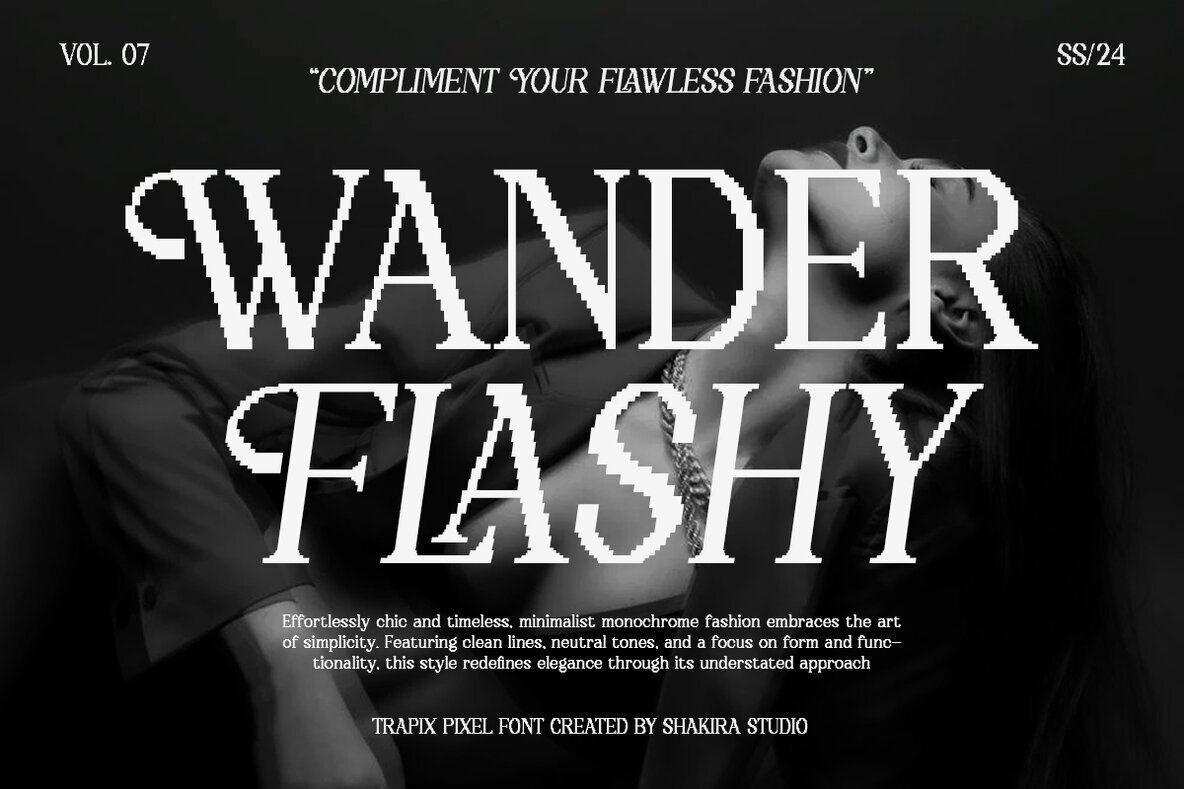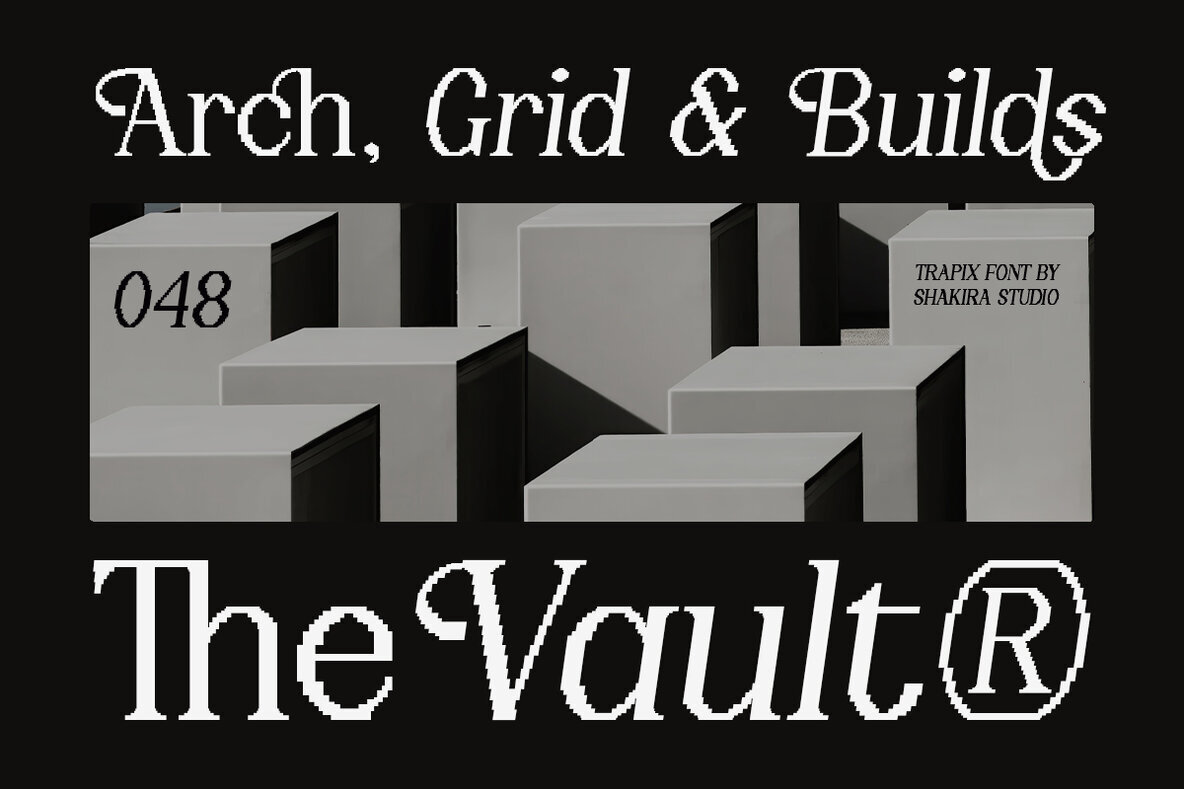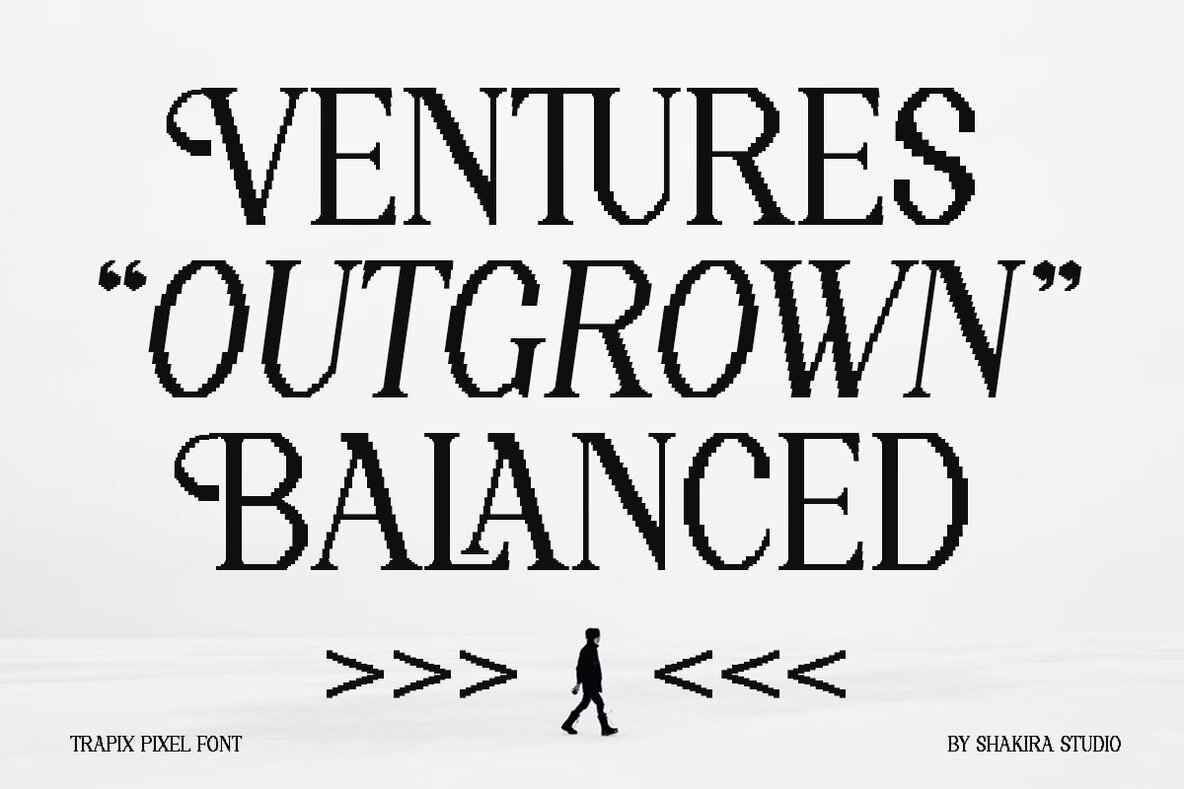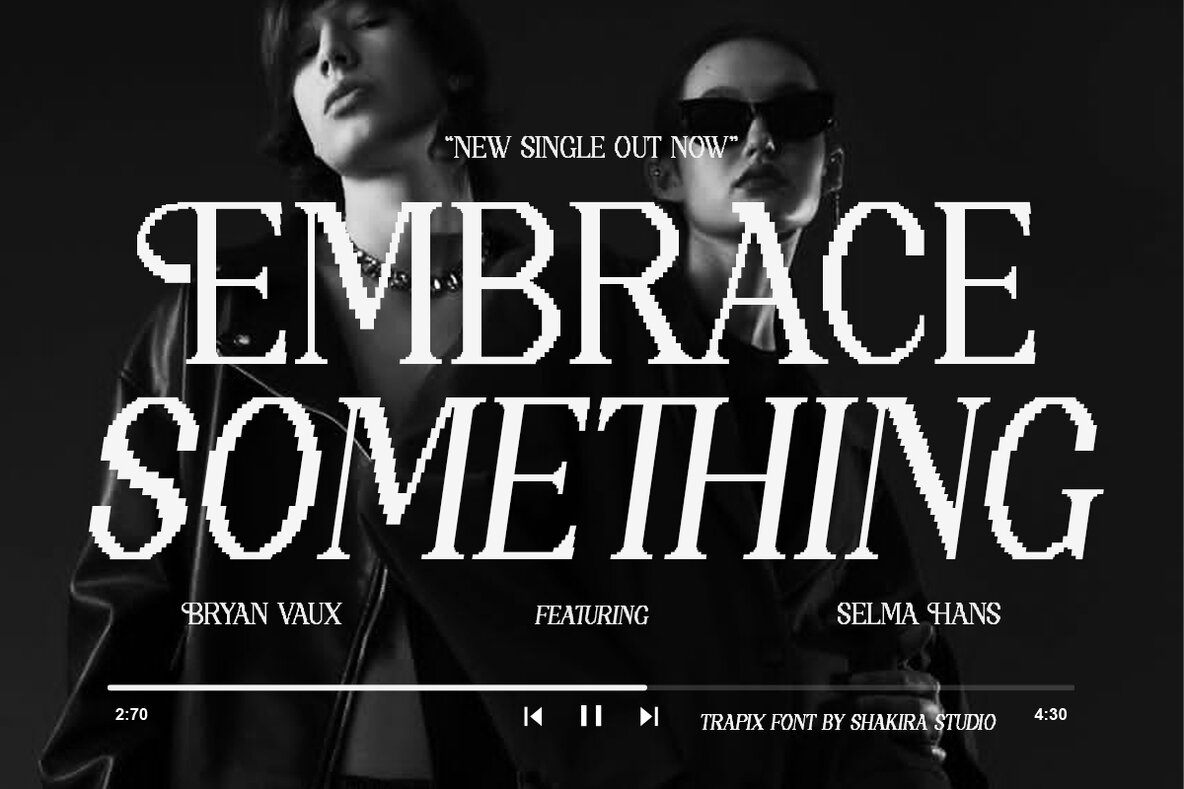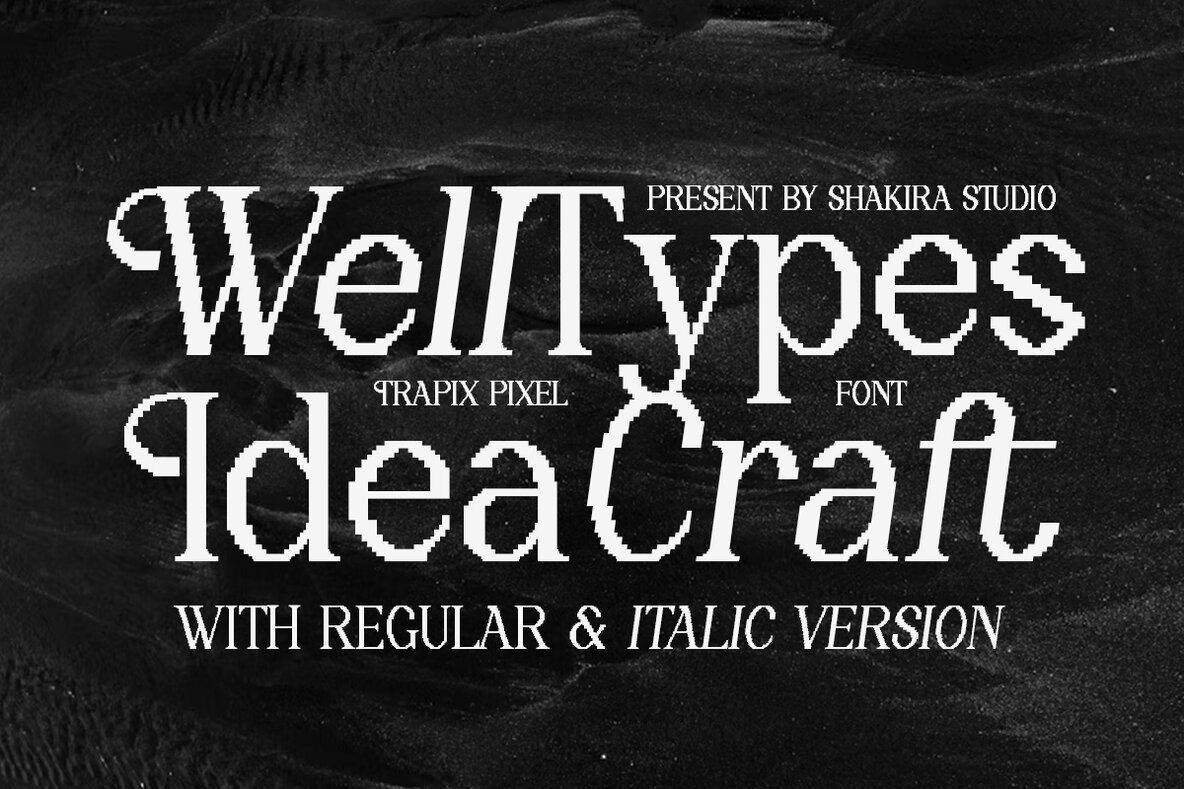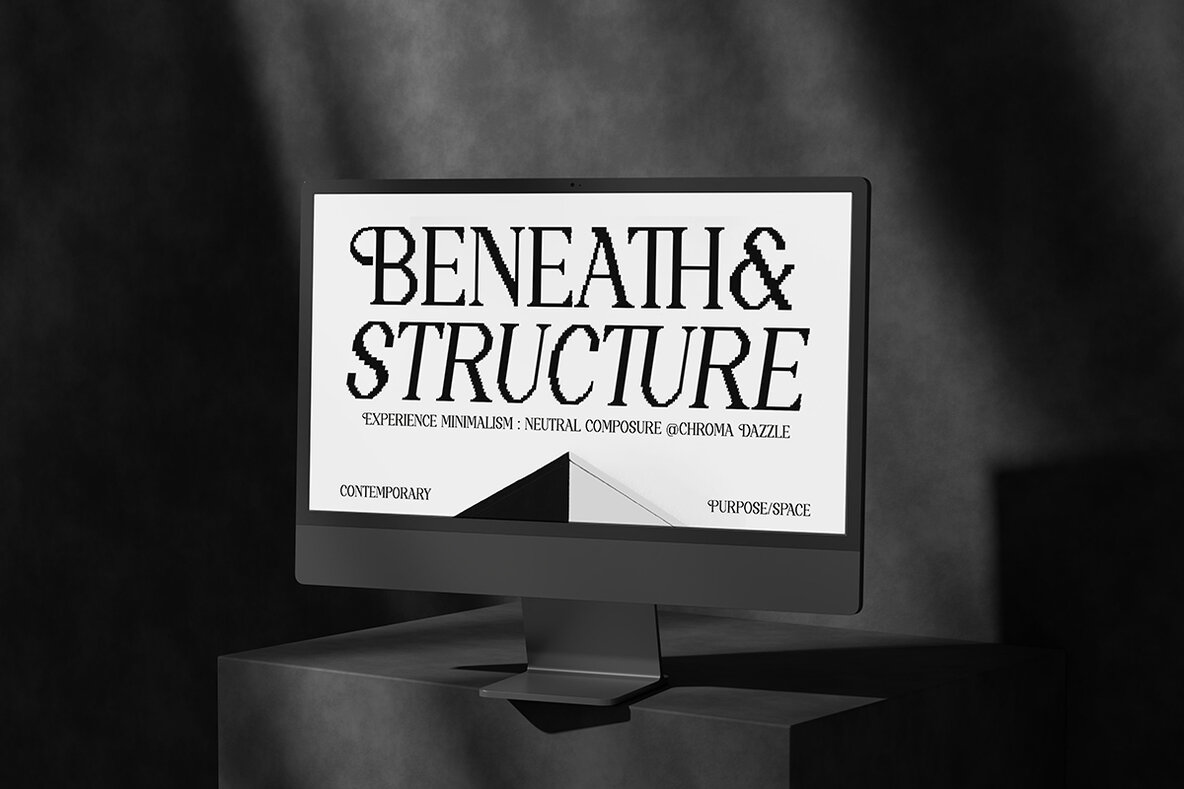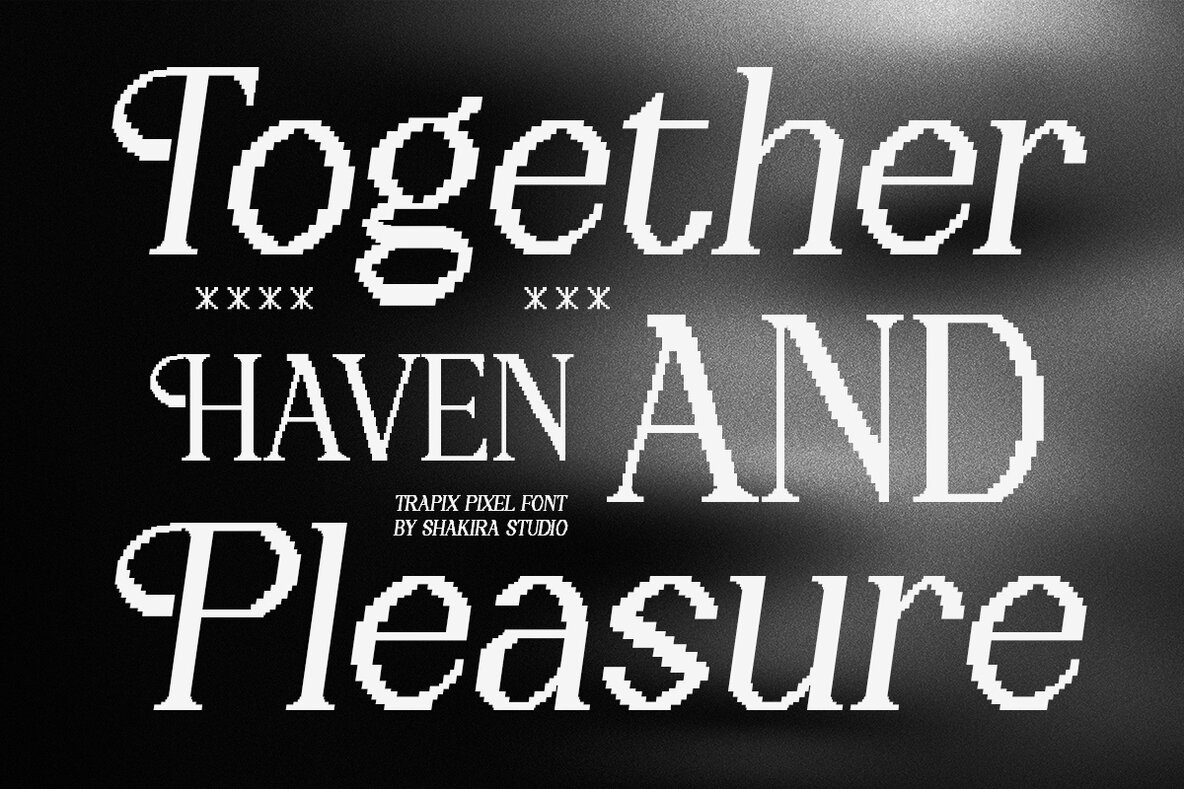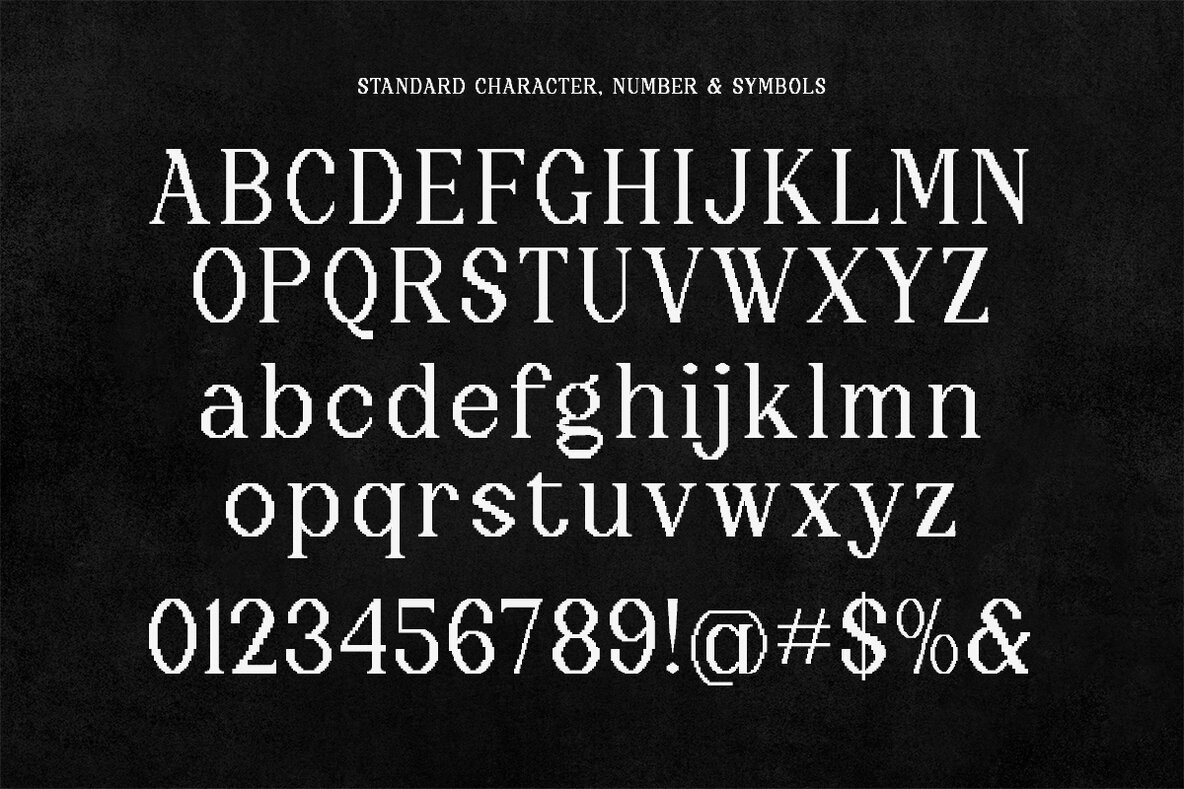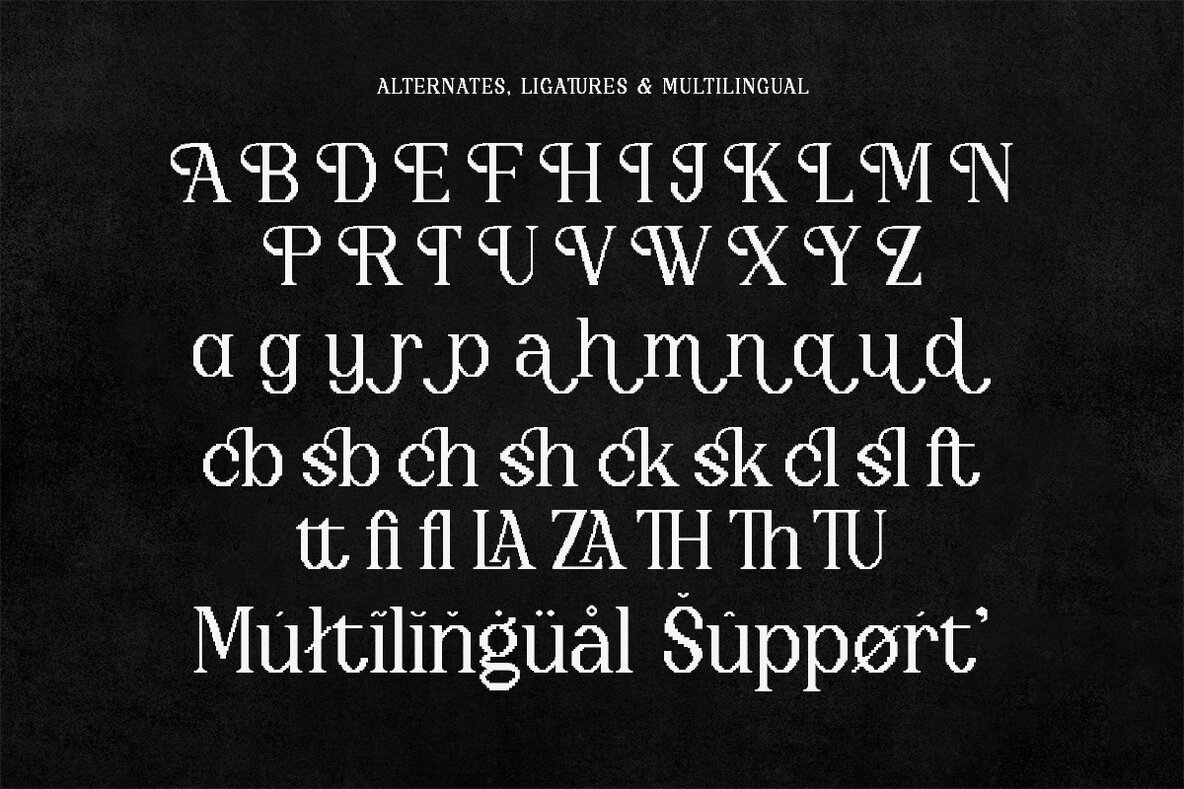
Trapix Font
Trapix - A Unique Pixel-Style Serif Typeface Trapix is a serif typeface with a unique pixel character, designed to bring a modern touch to your designs. Featuring stylish alternates and ligatures, this font allows users to create creative and personalized designs effortlessly. Perfect for a wide range of design needs, such as posters, magazines, branding, and premium prints. The combination of unique pixel style and classic serif elements makes Trapix the ideal choice for adding a stunning retro-modern vibe to your projects. Make Trapix the centerpiece of your design projects and create unforgettable works that stand out. Unleash your creativity with Trapix! Here's what you get: Multilingual character supports : (Afrikaans, Albanian, Catalan, Croatian, Czech, Danish, Dutch, English, Estonian, Finnish, French, German, Hungarian, Icelandic, Italian, Lithuanian, Maltese, Norwegian, Polish, Portuguese, Slovenian, Spanish, Swedish, Turkish, Zulu)